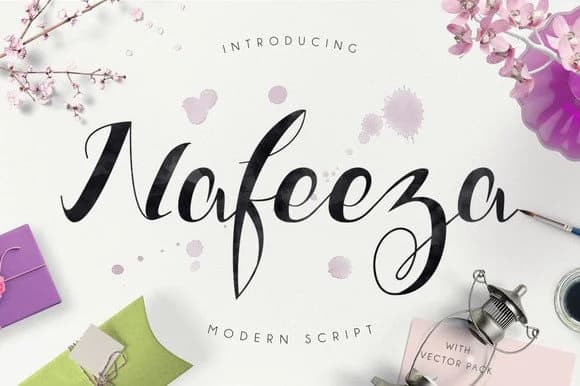
About Nafeeza Font
Nafeeza by ndroadvertising is a graceful handwritten script designed to bring warmth and personal character to any creative project. The font's flowing letterforms and natural hand-drawn quality create an authentic aesthetic that truly resonates with contemporary designers seeking elegance alongside organic charm. Its versatile personality works beautifully across diverse creative mediums and applications, from the intimate appeal of custom wedding invitation suites to the tactile charm of handmade jewelry tags, boutique candle packaging, and wine label design.
This typeface excels in applications where authenticity is central to your visual identity and overall brand strategy. Event stationery, romantic greeting cards, small business branding, custom product labels, and artisanal packaging all benefit from Nafeeza's organic sensibility and thoughtful proportions. The font maintains excellent readability and visual impact across popular design applications, ensuring consistent, polished results whether you're working in professional desktop software or browser-based design platforms. Its comprehensive character set provides the design flexibility needed to create visual identities that feel distinctly handcrafted rather than mass-produced, helping your brand establish a truly memorable, human presence in a competitive, increasingly crowded creative marketplace.
- Elegant, Flowing, Nafeeza
Nafeeza Font is a script font that shines as a display or heading face. Pair it with a clean sans-serif or serif font for body text β the contrast creates a clear hierarchy while the two styles stay balanced and easy to read.
Nafeeza Font